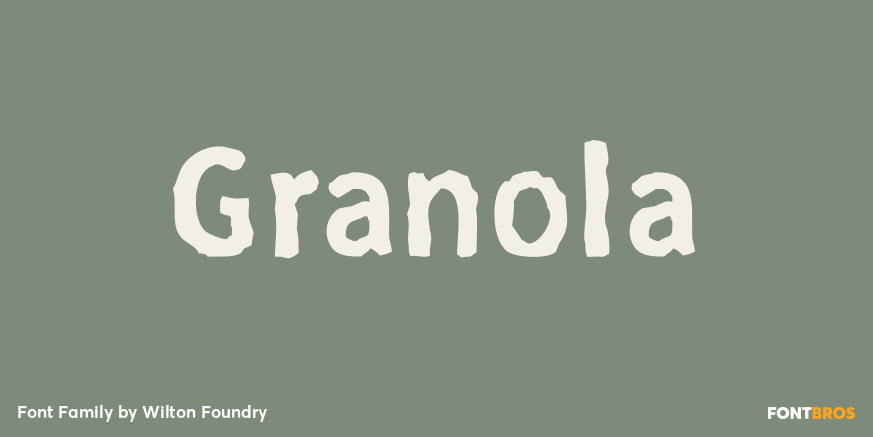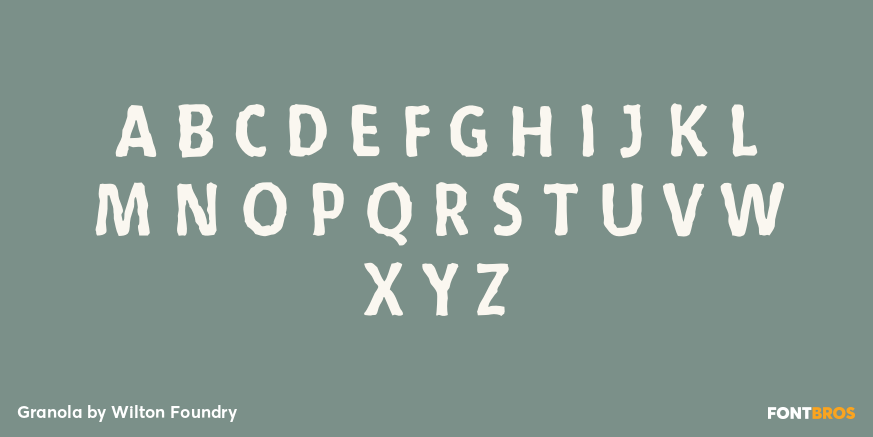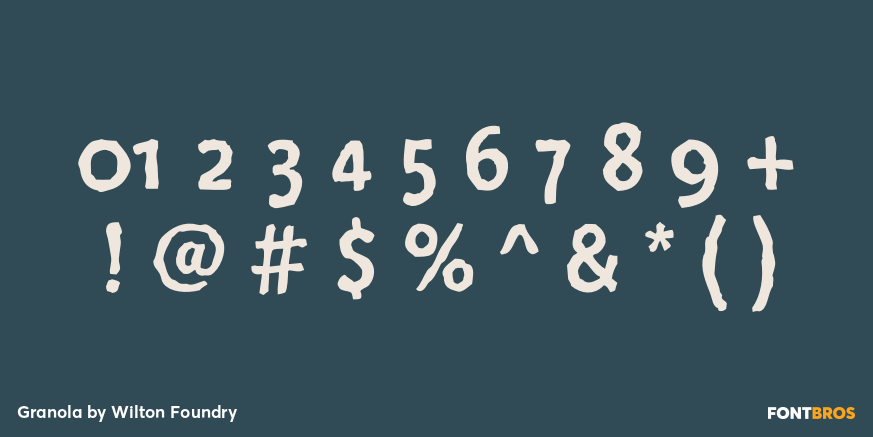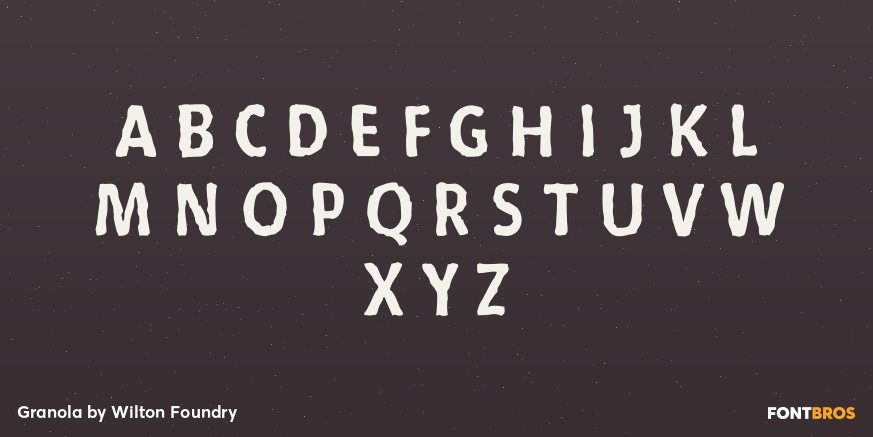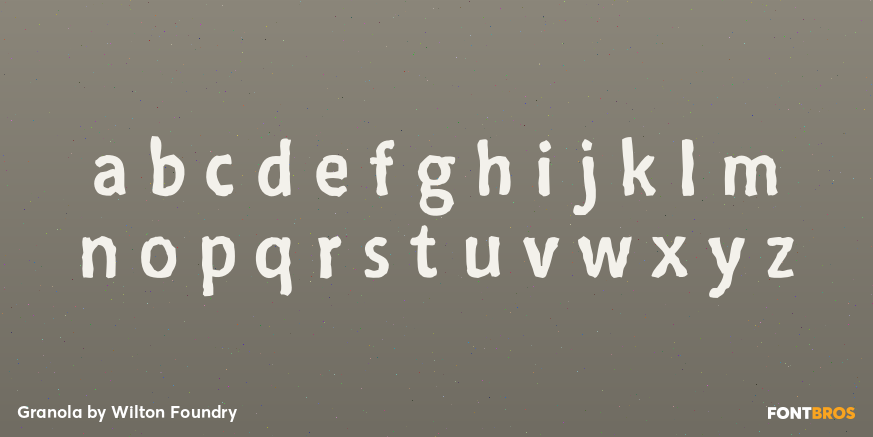
Granola
Font Family by Wilton Foundry
Granola is a completely hand-drawn font, for when you need more than a regular sans serif to express random granularity. It works extremely well for book text when used in smaller sizes from 14pt down.